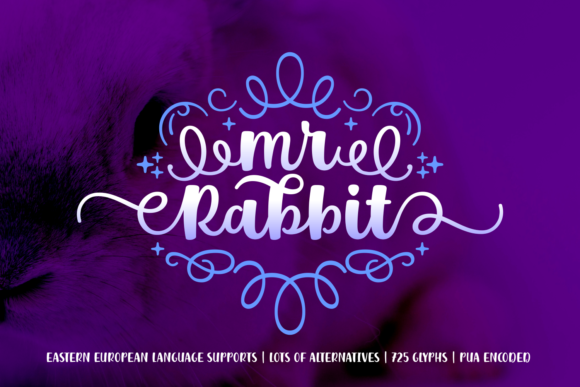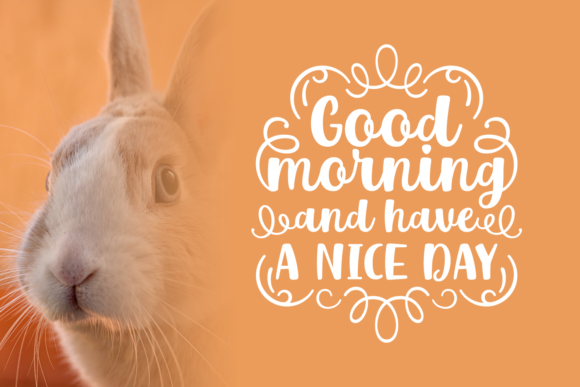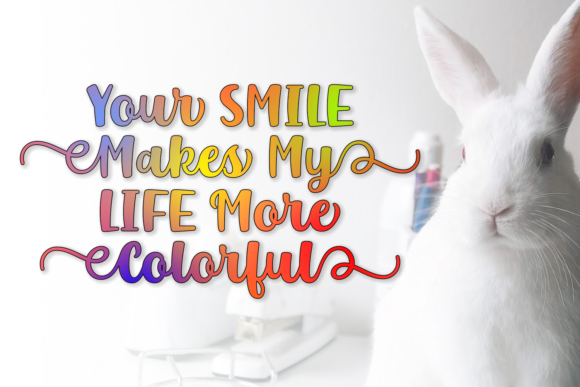
Mr. Rabbit Font
About Mr. Rabbit Font
Mr. Rabbit is a unique festive font packed with stunning swashes and alternates.
The Mr. Rabbit font is bold, making it a great font for Silhouette and Cricut, but it’s also very legible, making it suitable for a large range of projects.